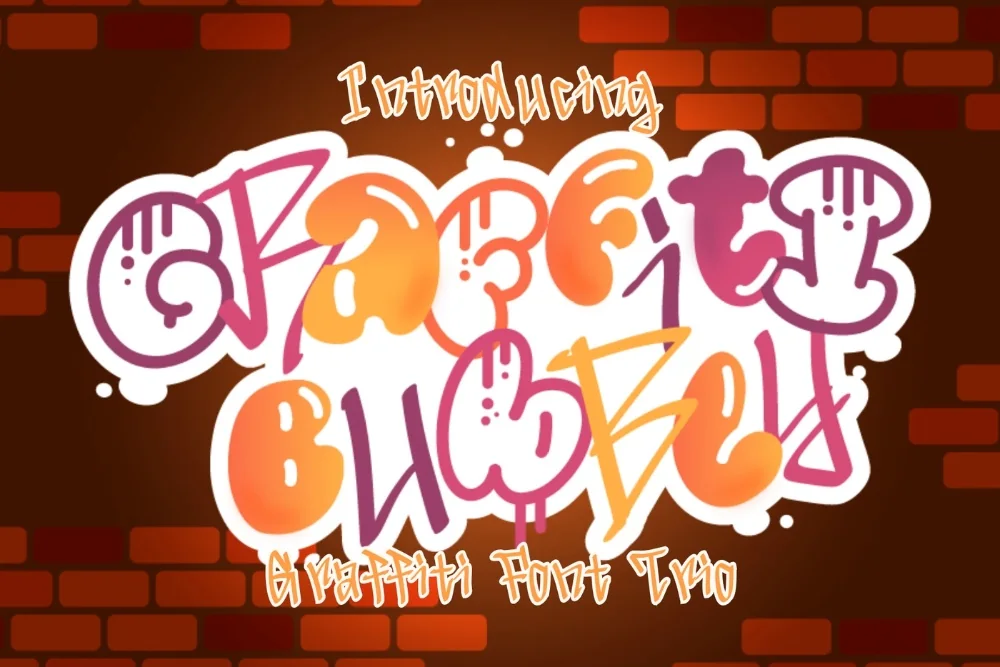
Bubbly Balloon Letter Font
Every collection needs a bubble letter font that can carry a whole layout on its own. This is that font. Fat, inflated letters that look ready to float off the page. Instantly friendly, and a favourite for younger audiences.
Every character is built from soft circular curves with no sharp corners anywhere. The outline stays a consistent thickness, which makes it easy to recolour the inside and outline separately.
Perfect for birthday graphics, sticker sheets, kids' room prints, and playful brand headlines.
Pair it with something quiet. A plain sans for body copy lets the lettering do its job instead of fighting the paragraph underneath it for attention.